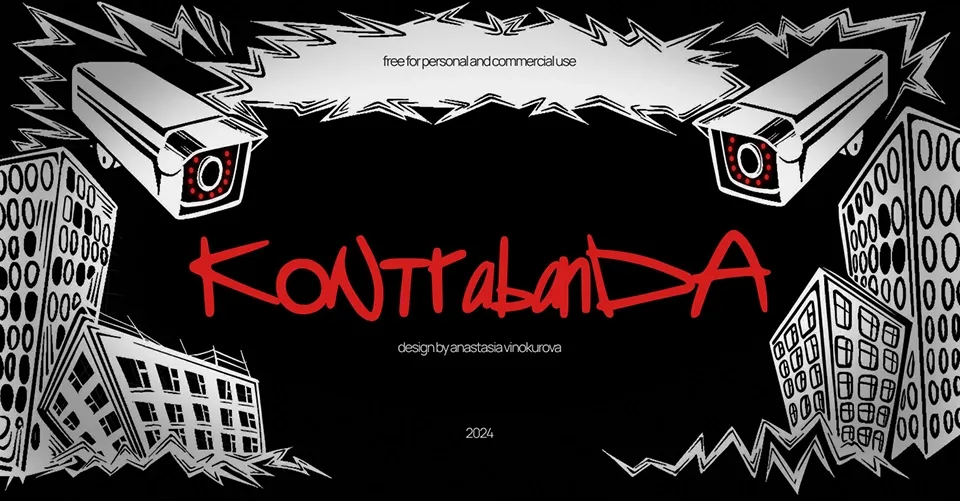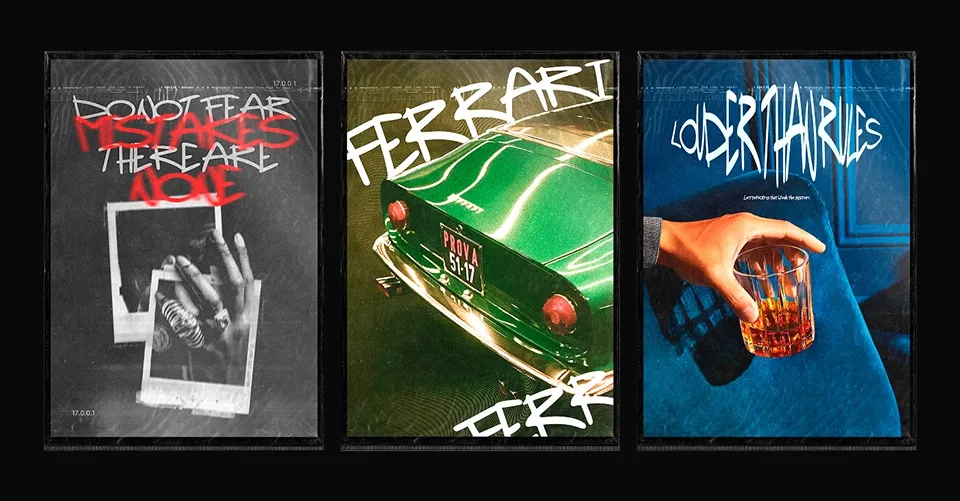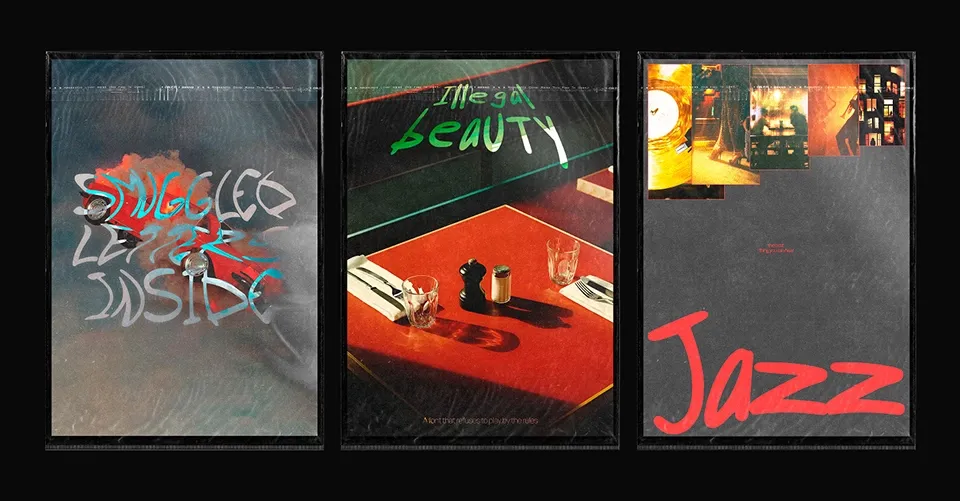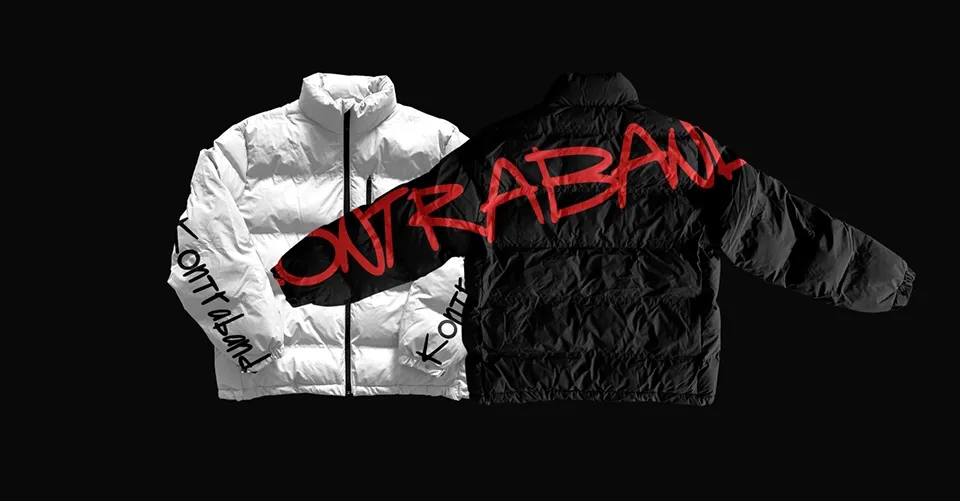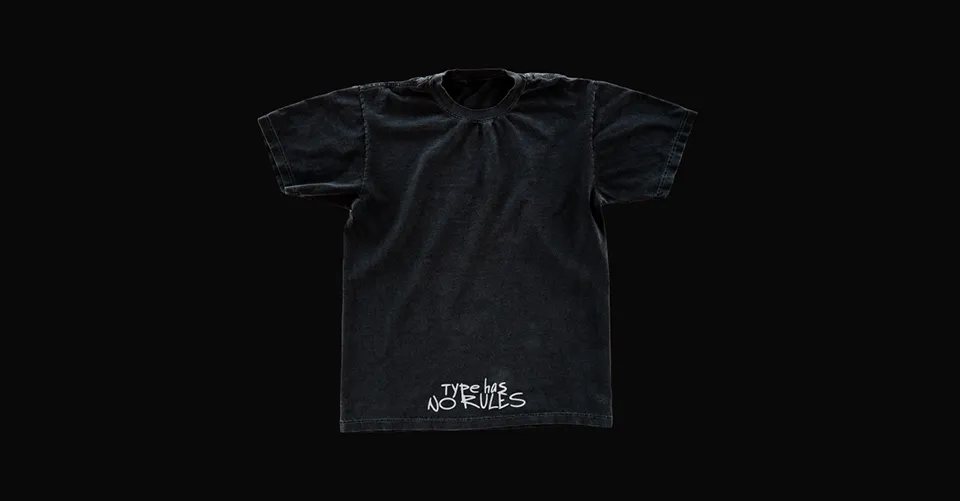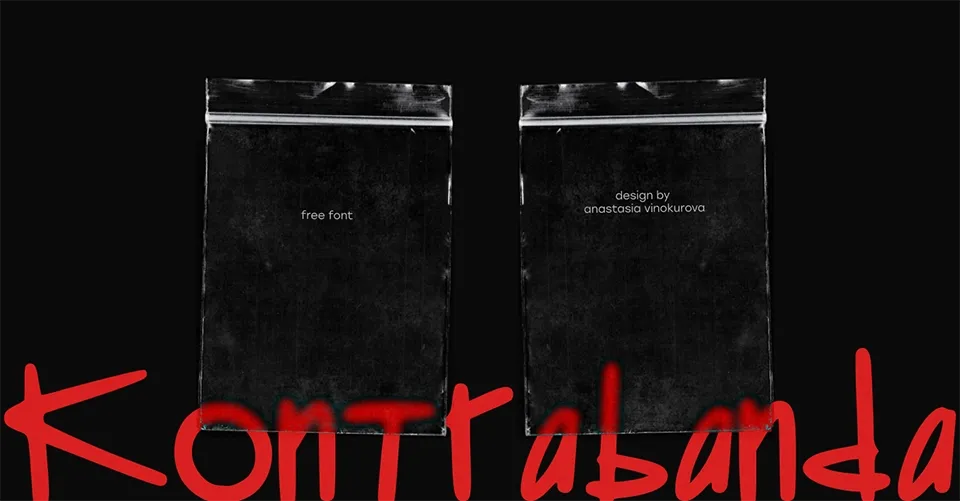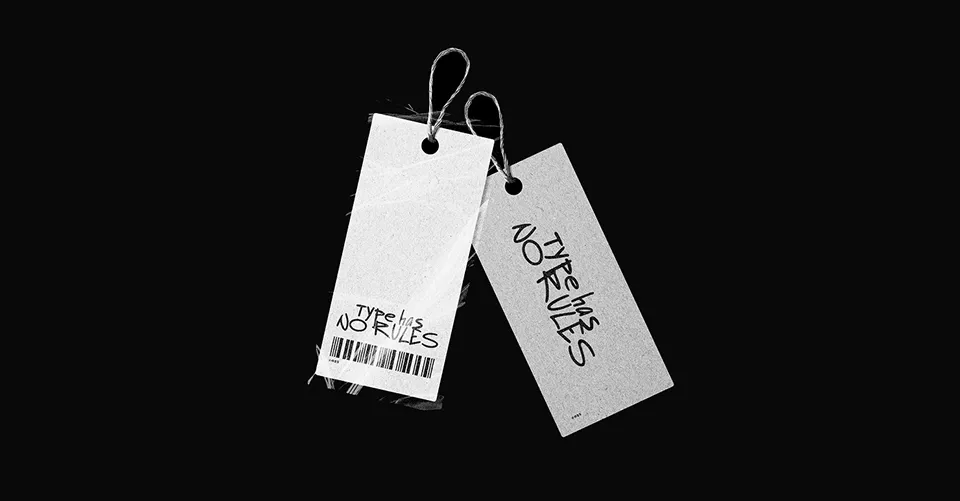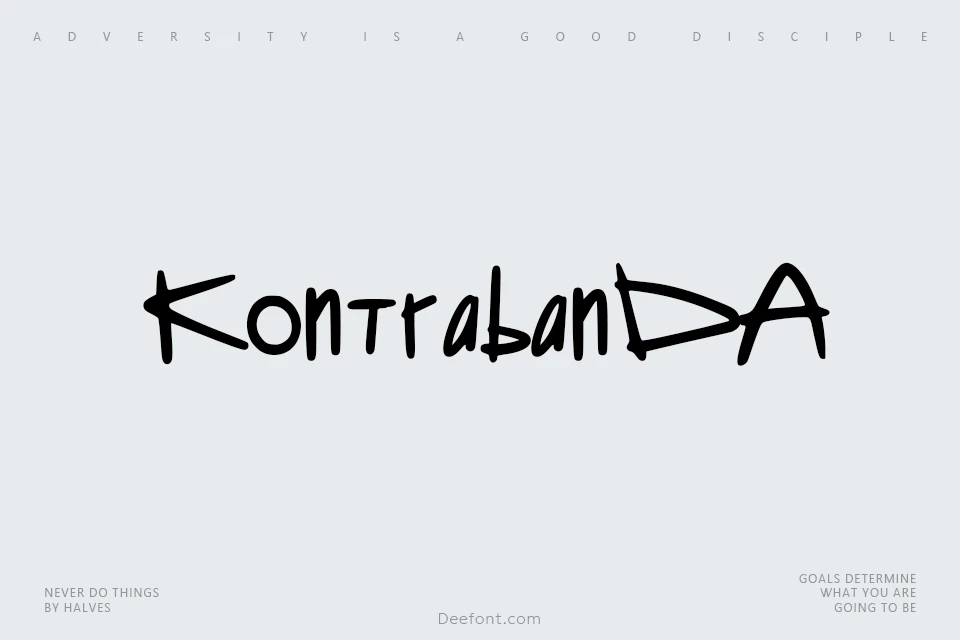
Kontrabanda New Font
Kontrabanda Font is a bold and expressive handwritten typeface designed by Anastasia Vinokurova. Its raw, edgy style captures a rebellious urban aesthetic, making it perfect for projects that demand a strong visual impact. The font’s irregular strokes and dynamic flow evoke a sense of movement and energy, ideal for street art-inspired designs, posters, or branding that stands out. Kontrabanda combines creativity with attitude, offering versatility for both personal and commercial use. Whether for bold headlines or artistic compositions, this font adds a distinctive character to any creative project.